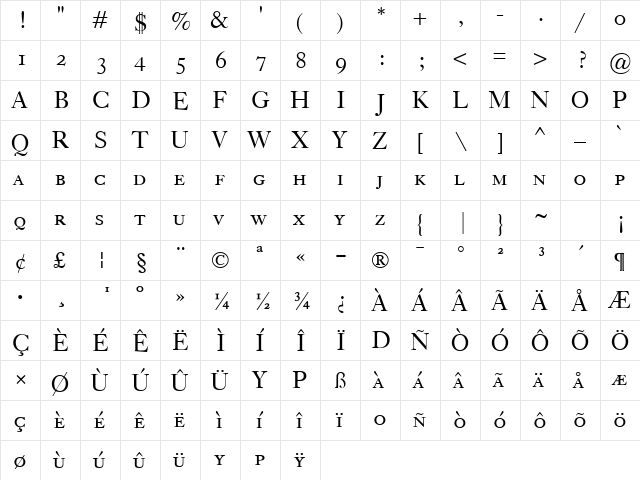
Caslon Classico SC Regular
Design Context for Caslon Classico SC Typeface
Caslon Classico SC has the warm character of retro typography — evoking diners, record sleeves, and the golden age of print advertising.
Perfect for vintage-inspired branding, retro packaging, nostalgia campaigns, and period-accurate editorial design.
Font Pairing: Combine Caslon Classico SC with a simple slab or neutral sans — period-accurate companions reinforce the vintage feel without competing for attention.
Pro Tip: Use Caslon Classico SC for headlines and pull quotes rather than body copy — its personality is best appreciated in short, focused bursts.